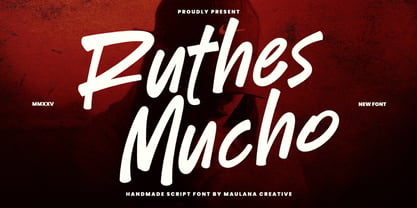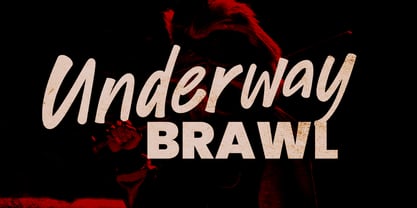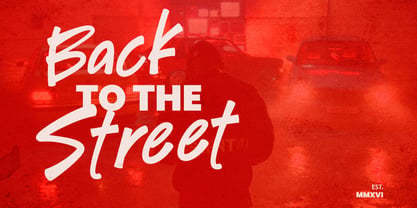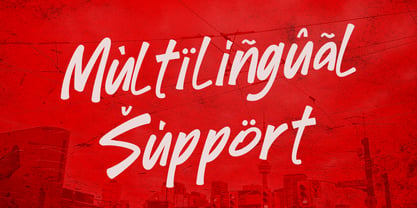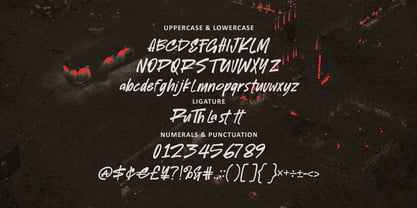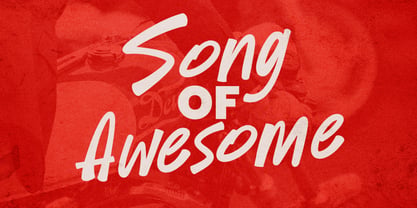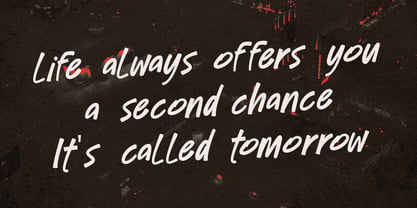
MC Ruthes Mucho
by Maulana Creative
The MC Ruthes Mucho Font Family was designed by Gilang Maulana and published by Maulana Creative. MC Ruthes Mucho contains 1 styles. More about this family
Ruthes Mucho is a authentic script handwritten font. With bold stroke, fun character with a bit of ligature. To give you an extra creative work. Ruthes Mucho font support multilingual more than 100+ language. This font is good for logo design, Social media, Movie Titles, Books Titles, a short text even a long text letter and good for your secondary text font with sans or serif. Make a stunning work with Ruthes Mucho font.
Designers: Gilang Maulana
Foundry: Maulana Creative